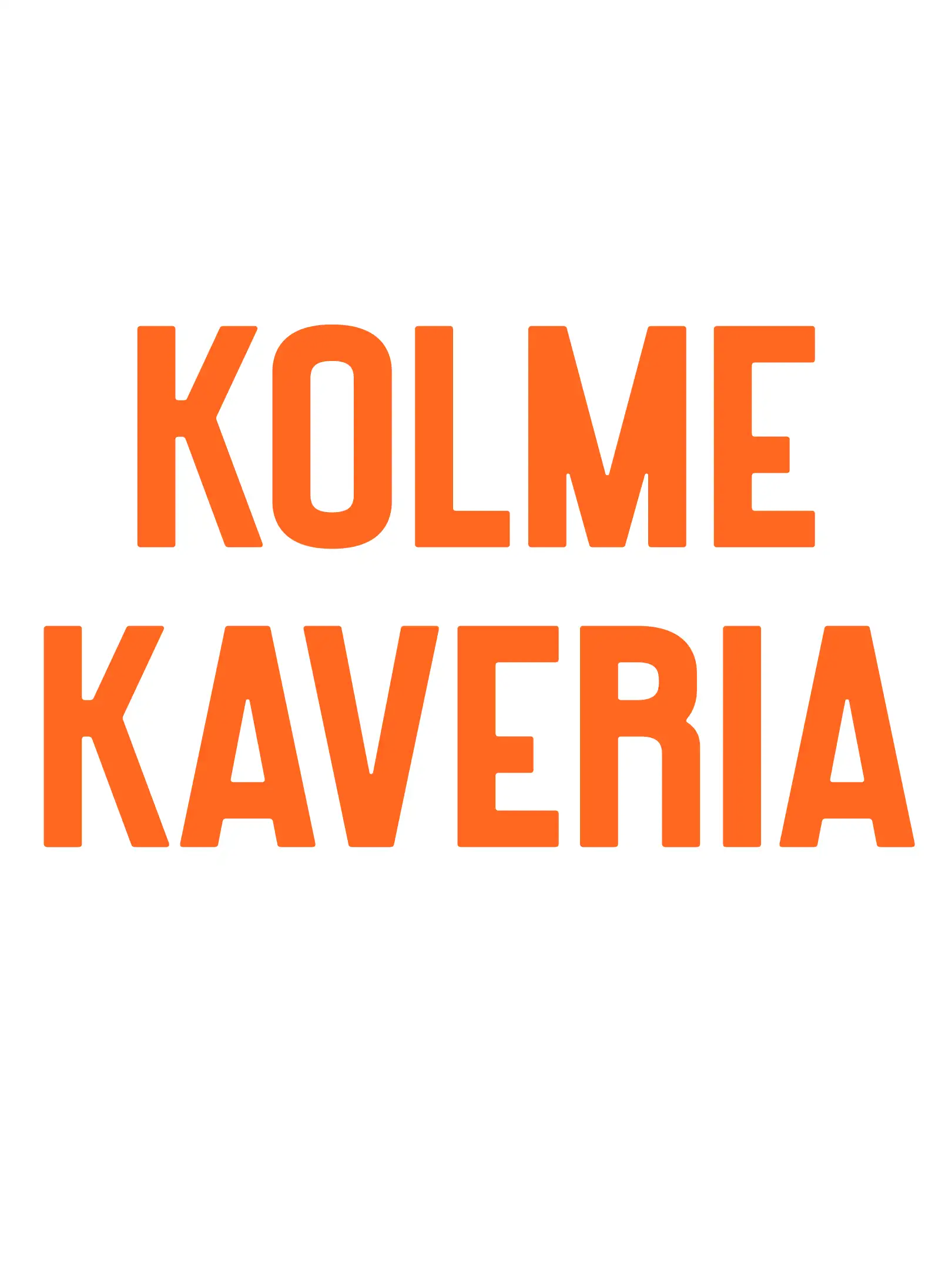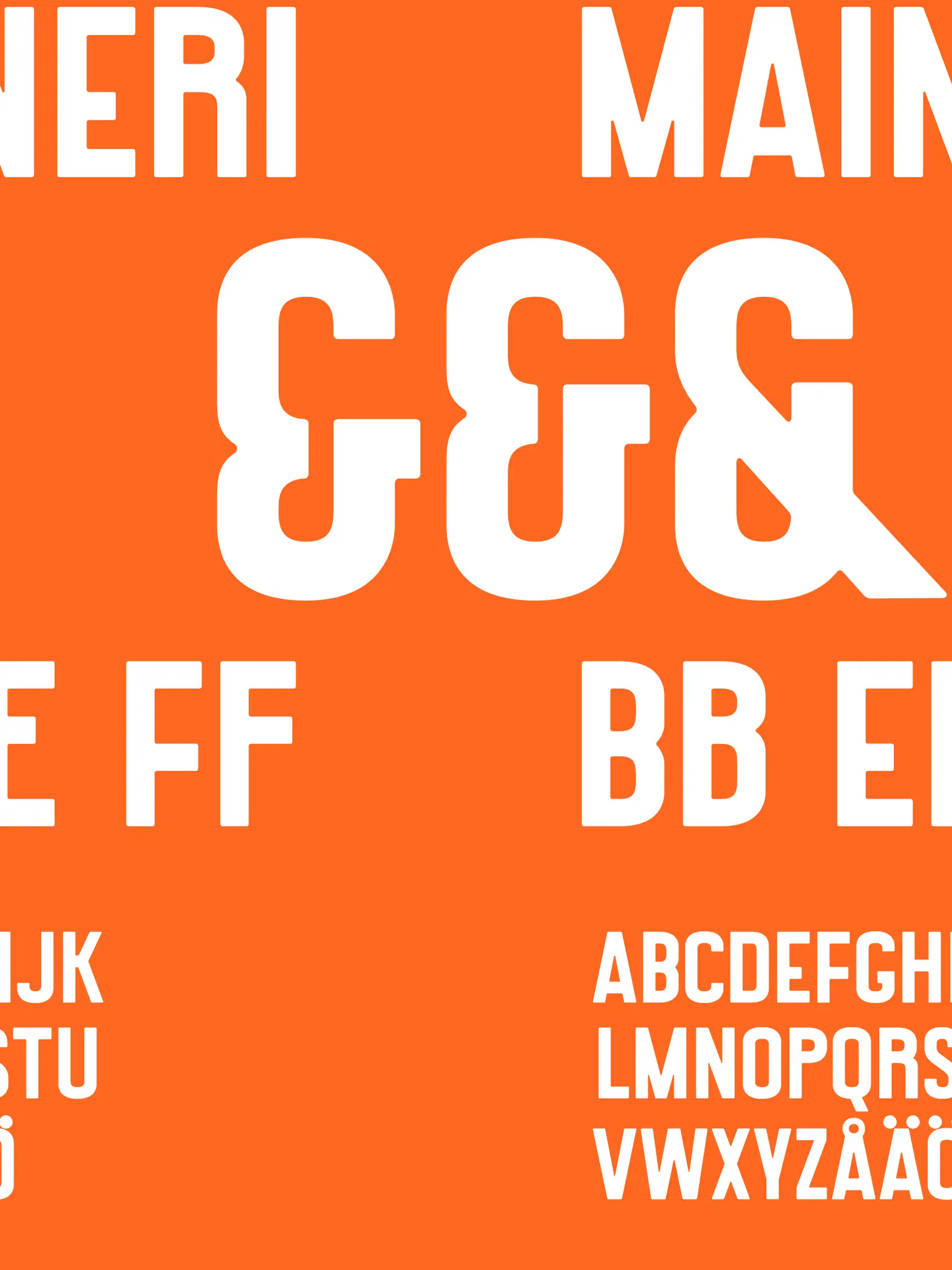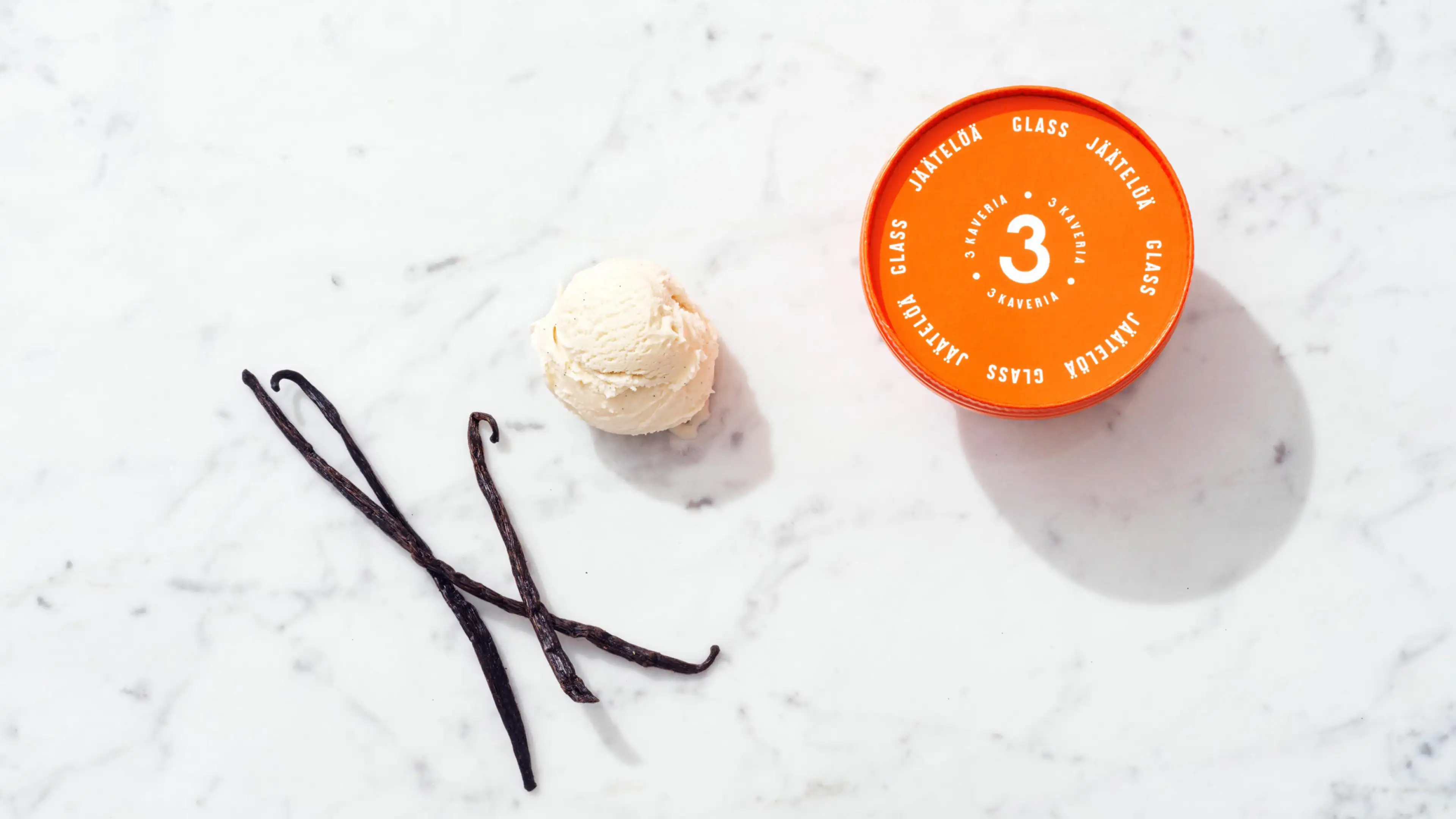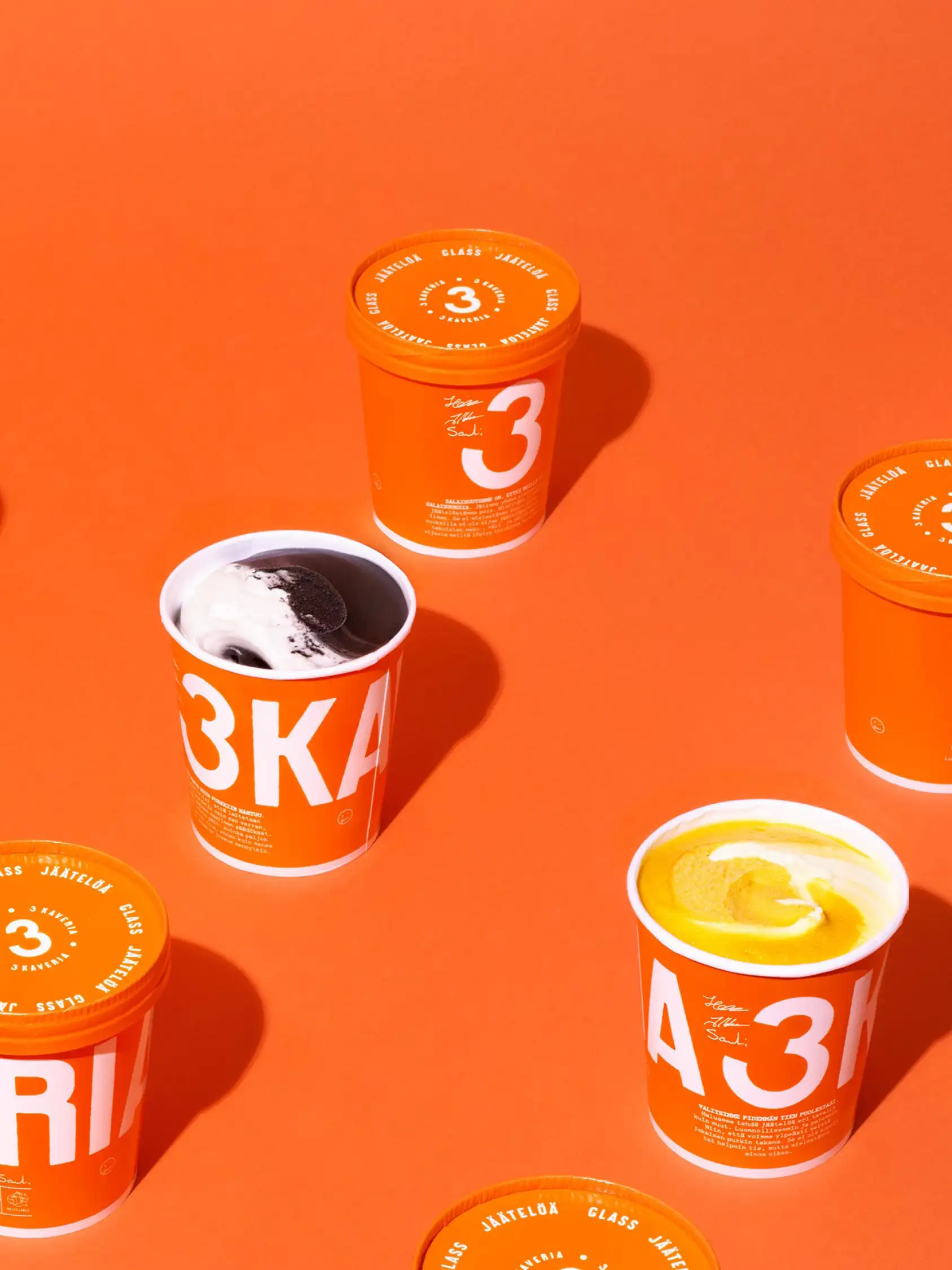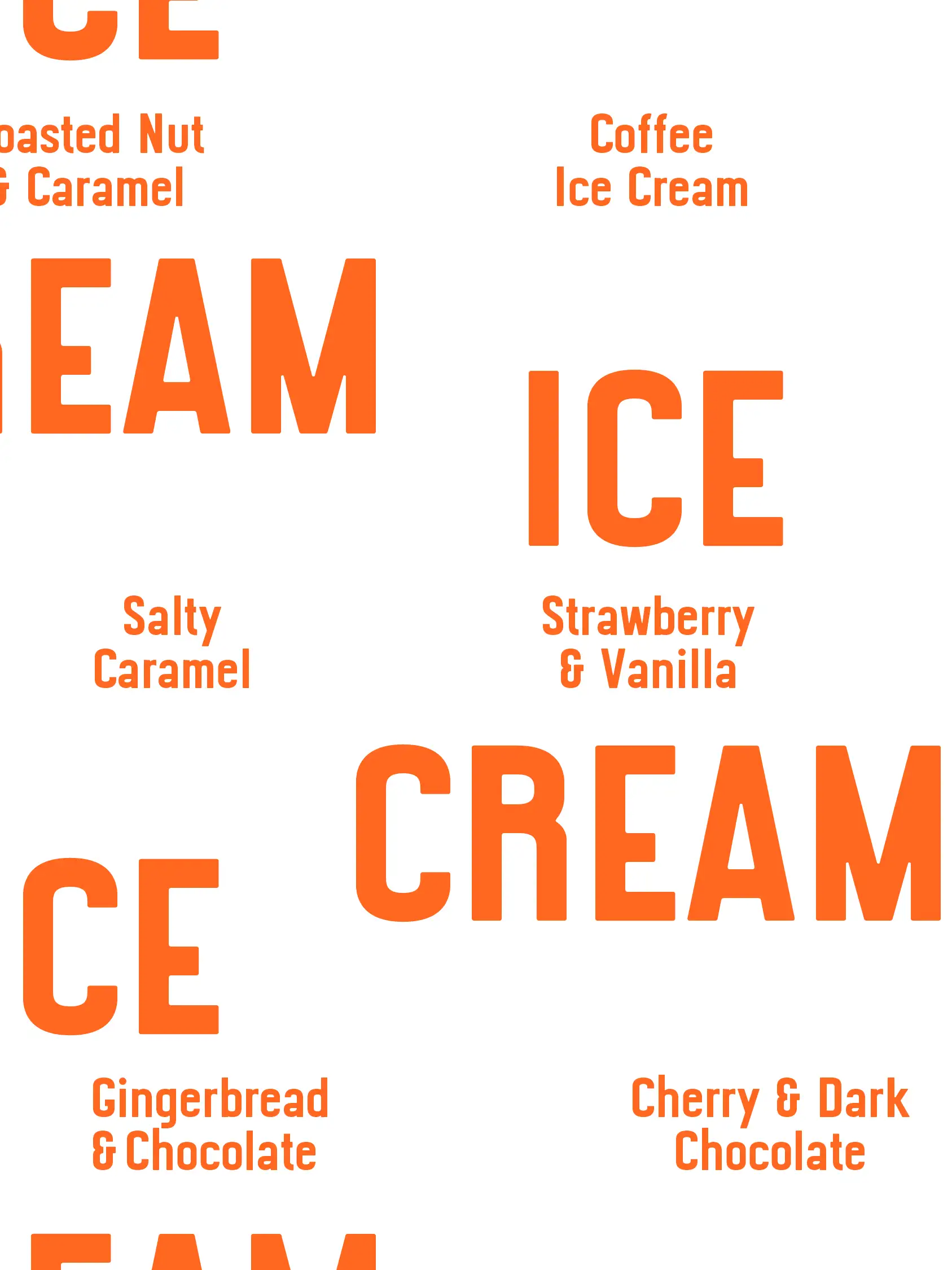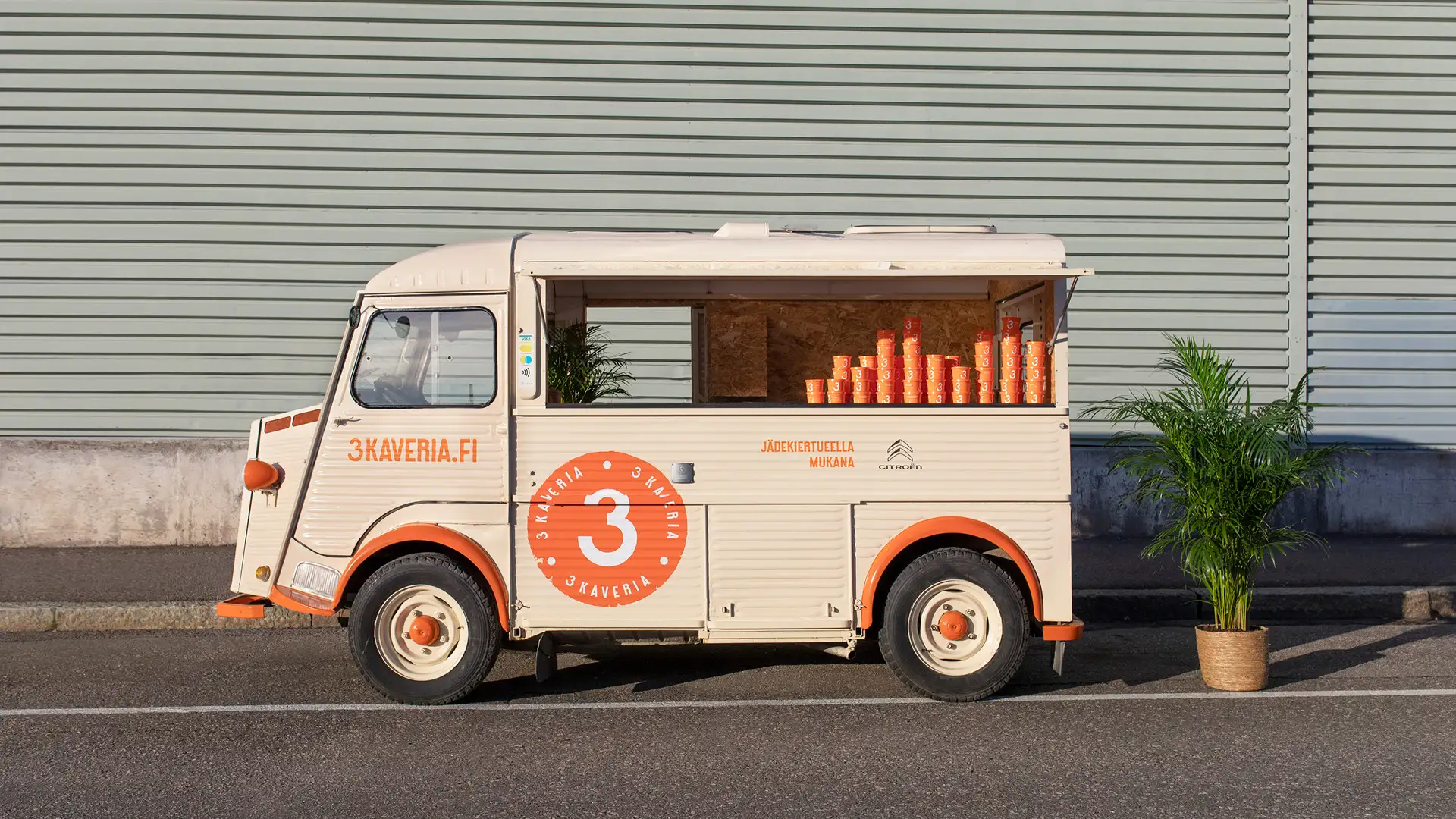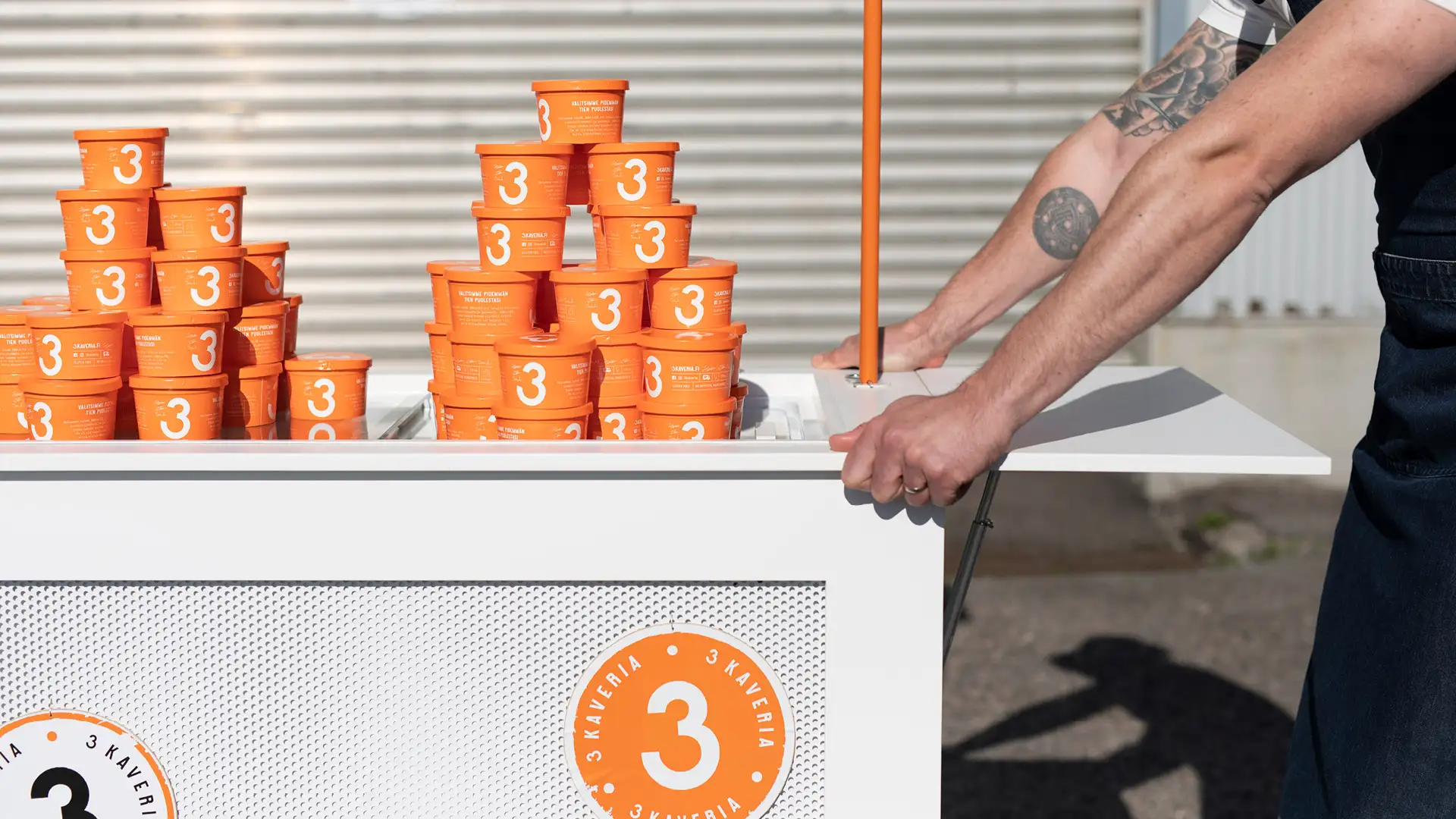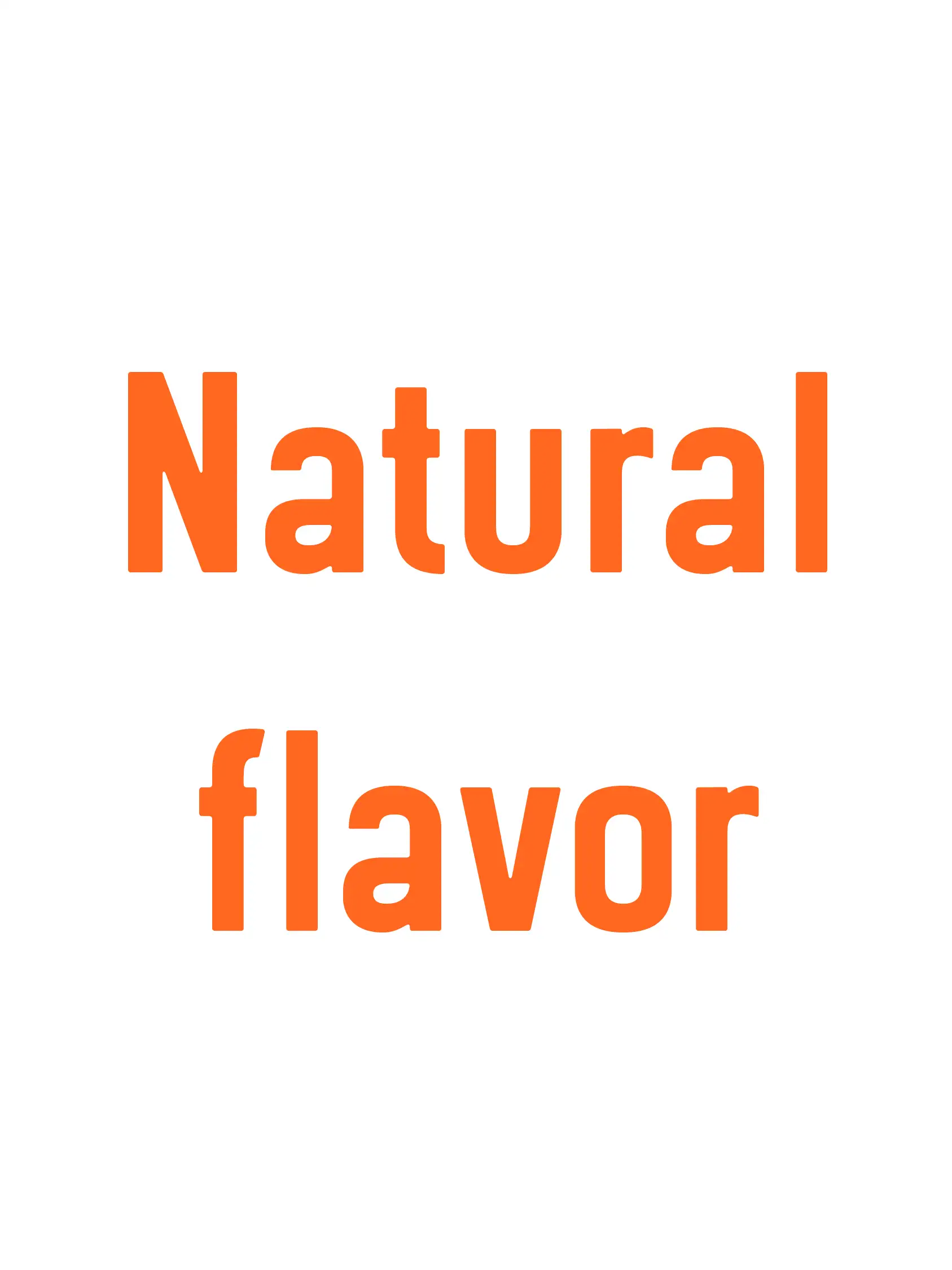
The visual identity of the ice cream brand
3 Kaveria or 3 Friends was redesigned by creative business design company
Kuudes. Juho was asked to join in to make the typeface which will dominate the visual identity and stand out of the supermarket freezers. The shapes of the typeface were inspired by a signpost in Italy.